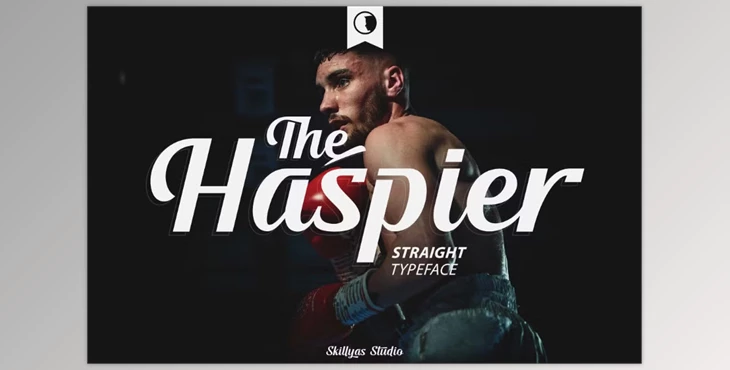
The Haspier Straight Script Font Creative Market:
Haspier is a modern, bold script font featuring sharp, handcrafted curves on its edges. Ideal for branding, logo design, lettering, clothing, posters, and other design projects, it includes both uppercase and lowercase letters, punctuation, symbols, and multilingual support. The font offers standard ligatures, an alternative style, and is PUA encoded. The package includes TTF, OTF, and WOFF file formats. For full OpenType feature support, programs like Adobe Illustrator, Photoshop, InDesign or Corel Draw are recommended.Download The Haspier Straight Script Font Creative Market - 14474220 from the below link now!